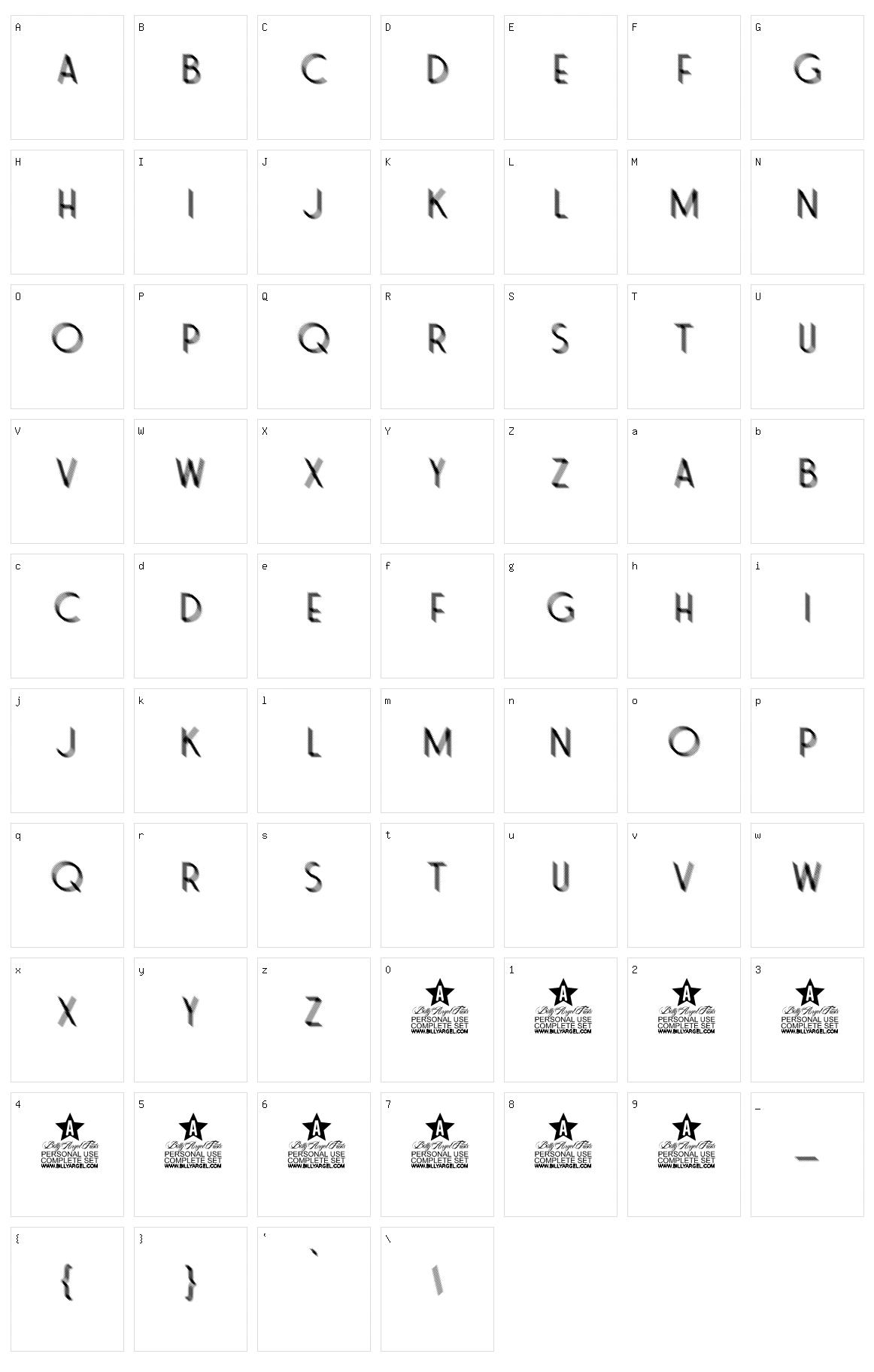
The free font Snorter is carefully designed by Billy Argel Fonts ®, showcasing a thoughtful balance of creativity and usability and falls under the Distorted font style. When you download the ZIP file, it contains only 531.27 KB of font files, making it lightweight and quick to download. Please review the license details below to understand permitted usage and distribution rights. If license information is not available, we recommend using this font for personal projects only or contacting the author directly for commercial usage permissions.